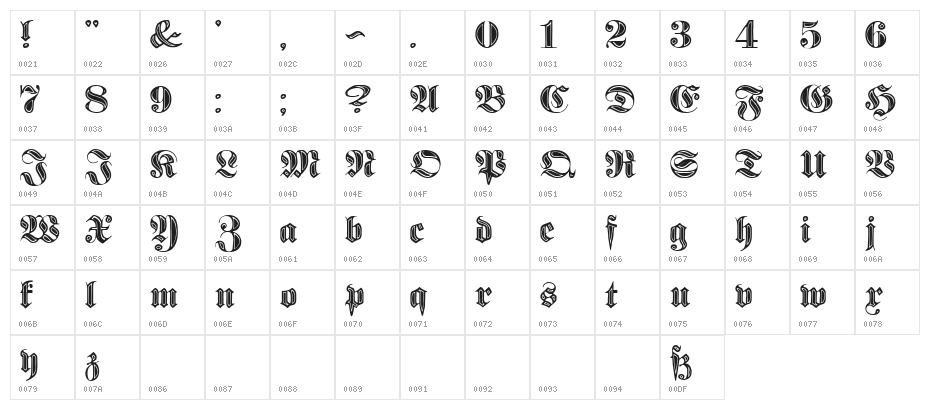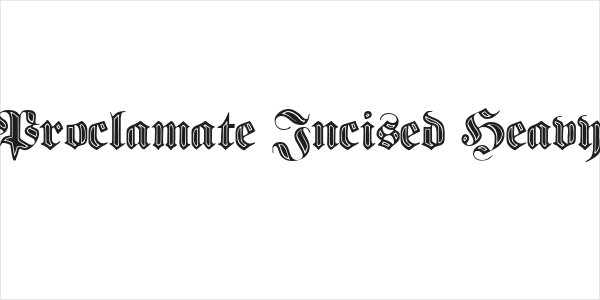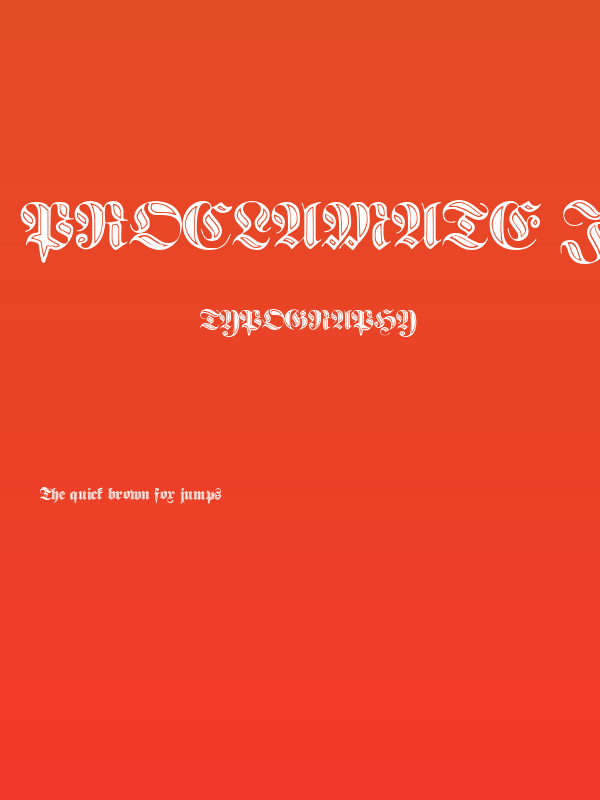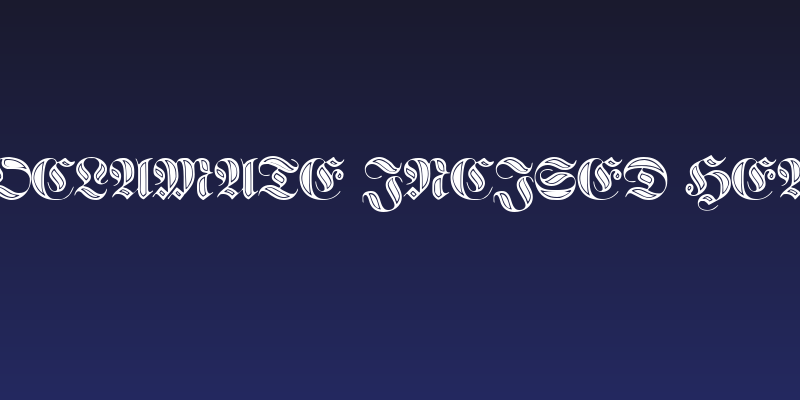
Proclamate Incised Heavy Font
Proclamate Incised Heavy Description
This font exhibits a bold and intricate design, reminiscent of traditional blackletter styles. Each character is meticulously crafted with sharp angles and dramatic flourishes, creating a sense of historical elegance and authority. The uppercase letters are particularly ornate, featuring elaborate serifs and decorative elements that enhance their visual impact. The lowercase letters maintain a consistent style, offering a cohesive look across text. Numbers and special characters are equally detailed, ensuring a uniform appearance throughout. This font's heavy weight and incised details make it ideal for projects requiring a strong, impactful presence.
| Use Case | Headlines, Logos, Decorative text |
| Proposed Projects | Suitable for certificates, formal invitations, branding for luxury products, or any project needing a touch of historical elegance. |